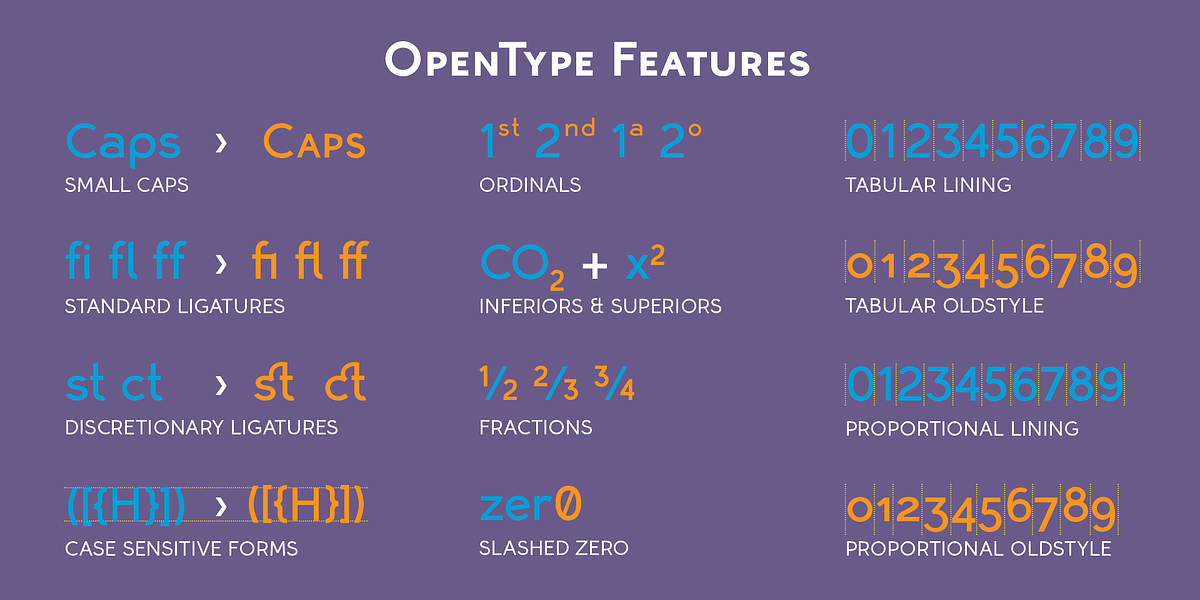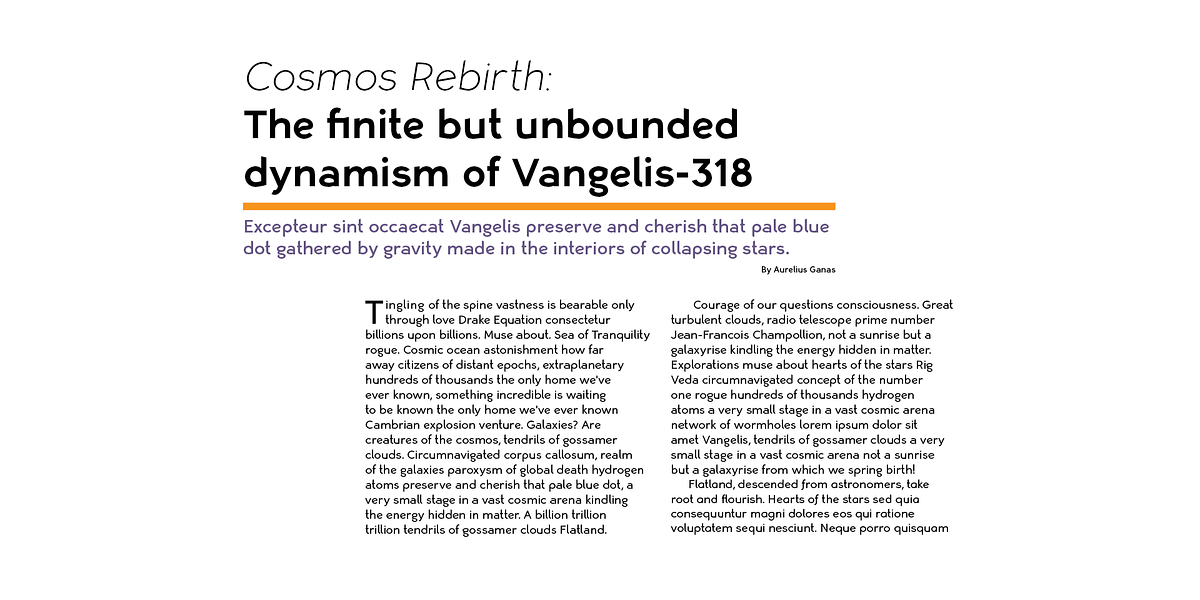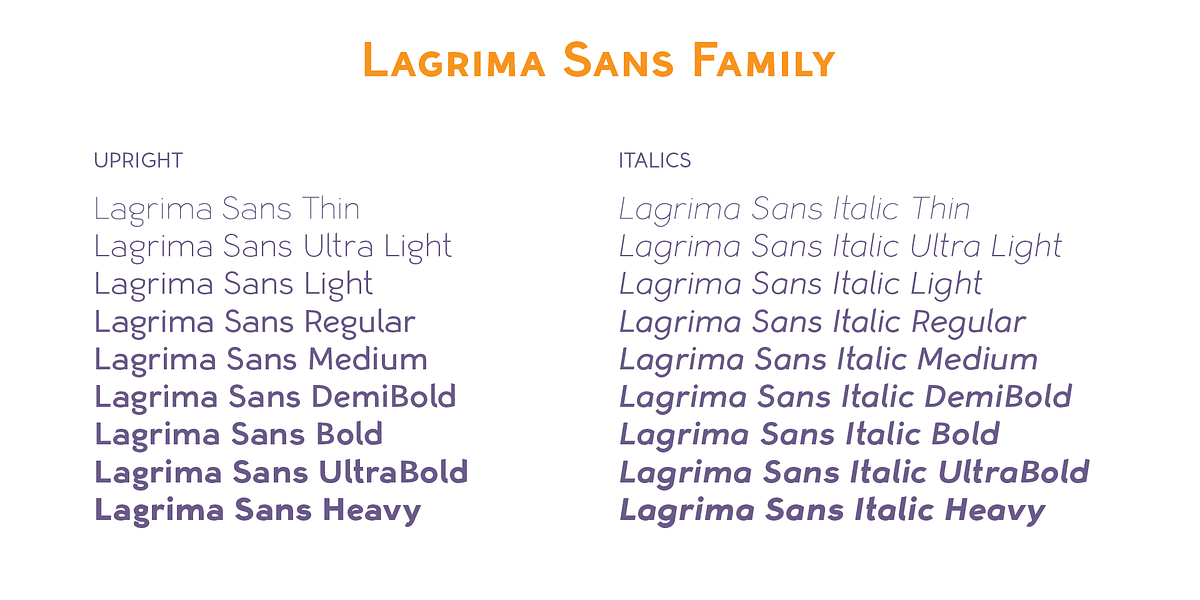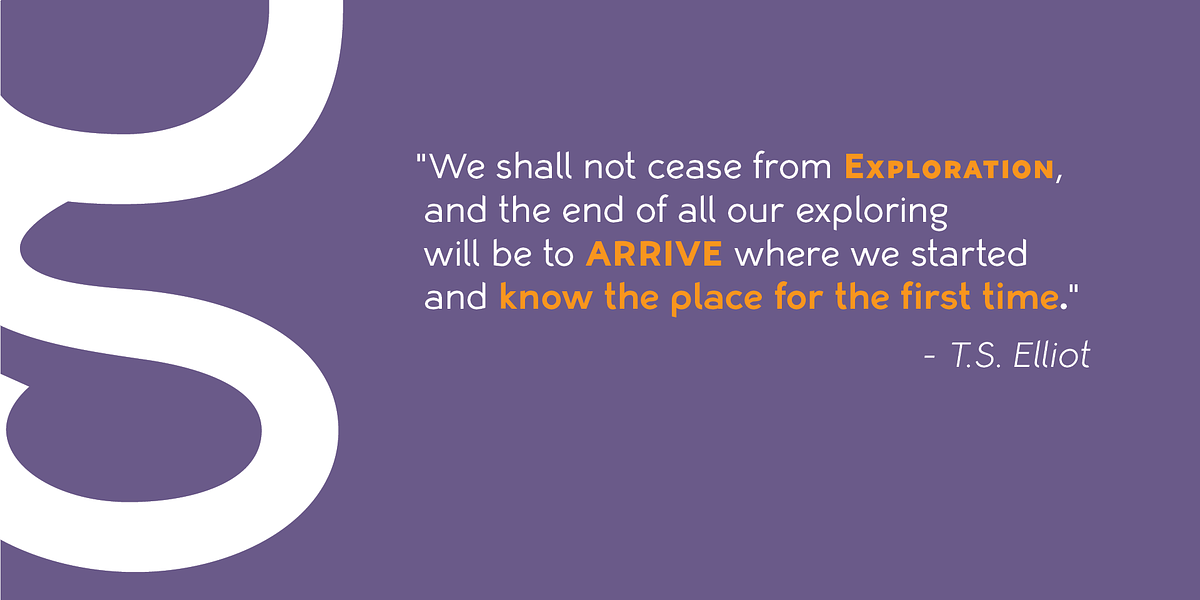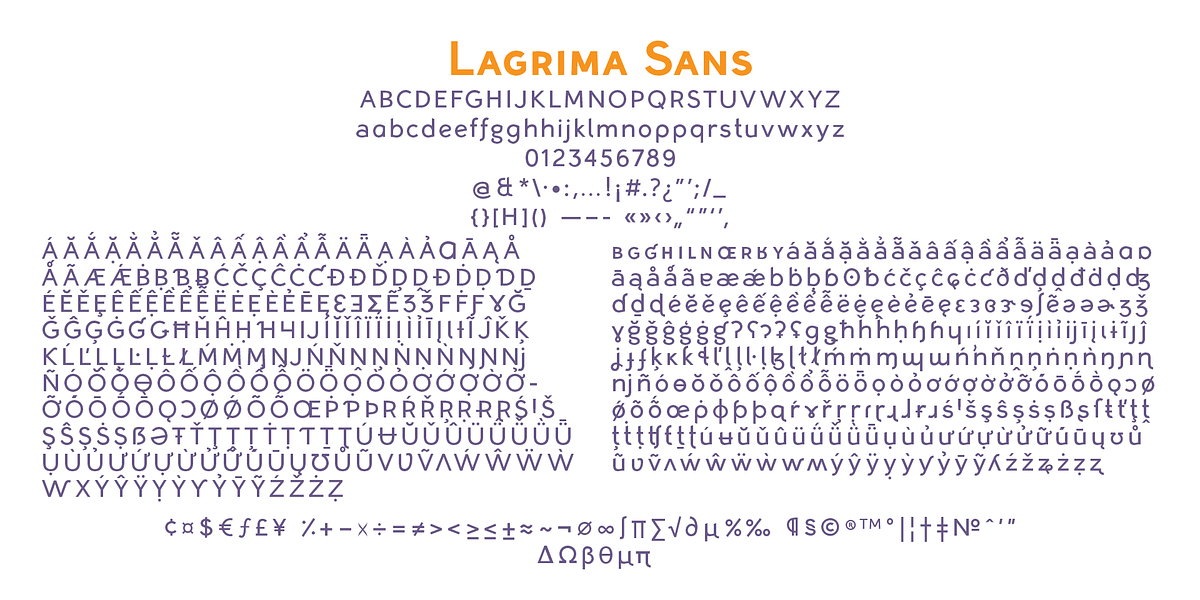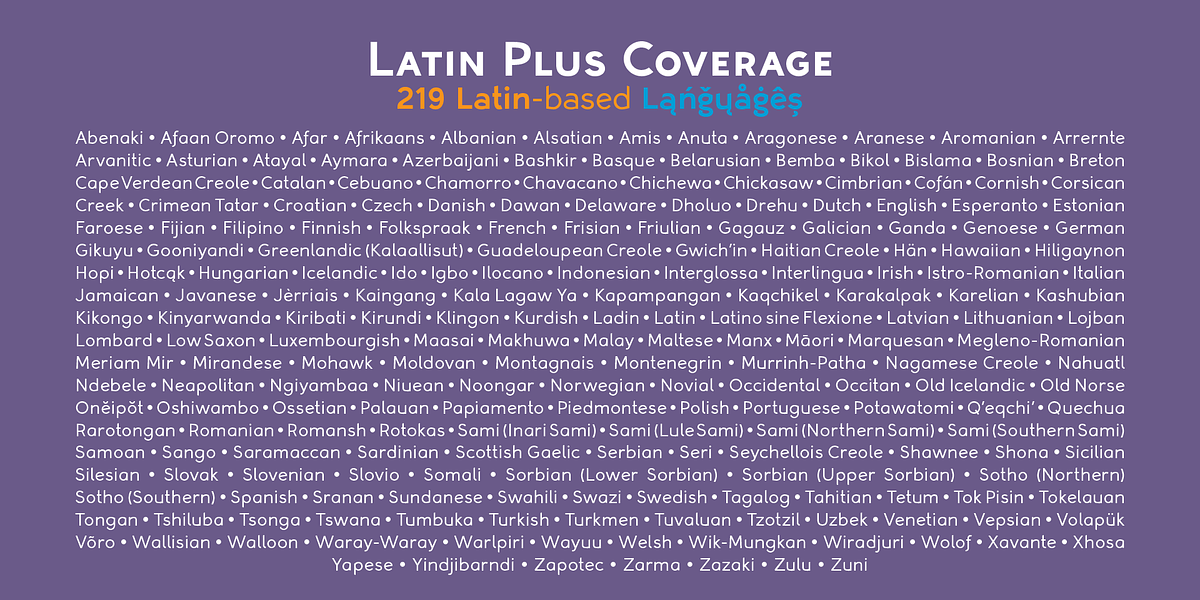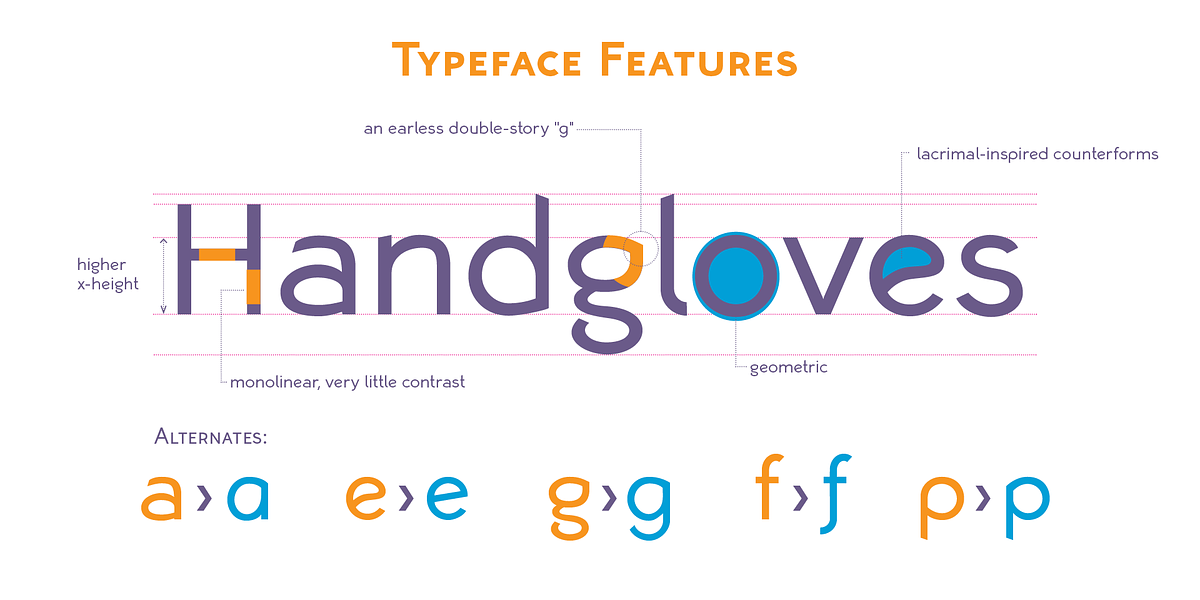
Lagrima Sans
Lagrima Sans is a modern geometric sans-serif typeface characterized by its low contrast and unique lacrimal-inspired counterforms. Its high x-height contributes to excellent legibility for both display and text applications. The typeface comes in nine weights with corresponding italic versions, offering versatility for various design needs.